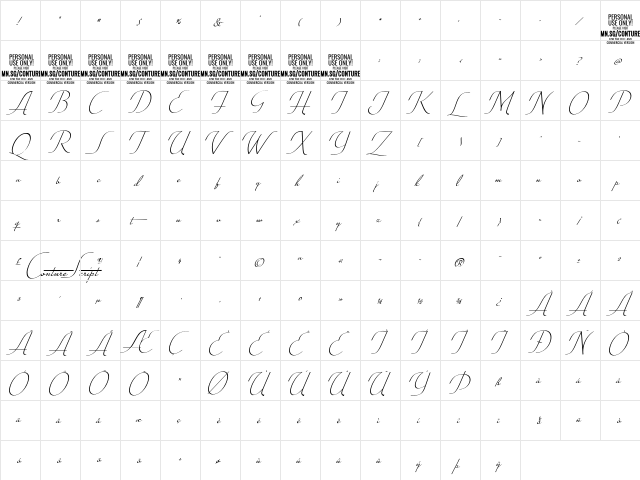
Conture Script PERSONAL USE Regular
Design Context for Conture Script PERSONAL USE Typeface
Conture Script PERSONAL USE brings a calligraphic fluidity to the page — its connecting strokes and expressive curves give it an unmistakably human quality.
Font Pairing: Combine Conture Script PERSONAL USE with a simple geometric sans for maximum contrast — the tension between flowing curves and clean structure is a classic typographic pairing.
Pro Tip: Use Conture Script PERSONAL USE for short runs of text — names, titles, or taglines. Extended body copy in script faces tires the eye quickly.